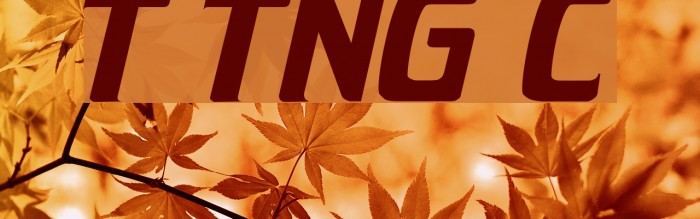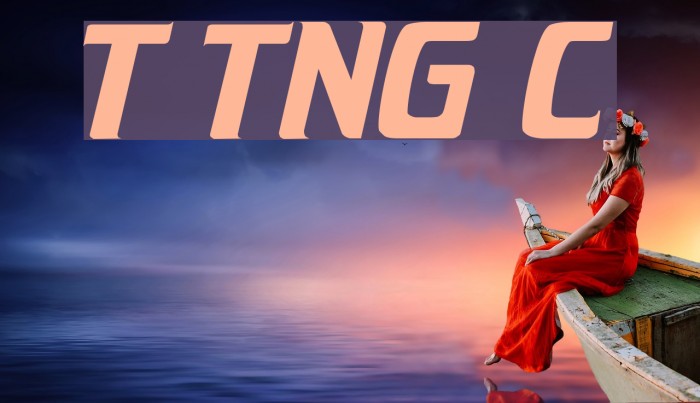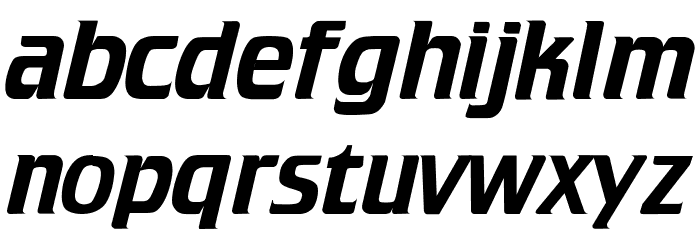
Trek TNG Credits Font
Trek TNG Credits Description
This font features a futuristic and dynamic design, characterized by its italicized and slightly condensed letterforms. The strokes are bold and consistent, providing a strong visual impact. The angular cuts and sharp edges give it a modern and sleek appearance, making it suitable for projects that require a sense of speed and innovation. The numerals and special characters maintain the same stylistic approach, ensuring uniformity across all text elements. Its unique style is reminiscent of science fiction themes, making it ideal for creative and bold design applications.
| Proposed Projects | Ideal for science fiction-themed projects, technology branding, video game titles, and futuristic posters. |